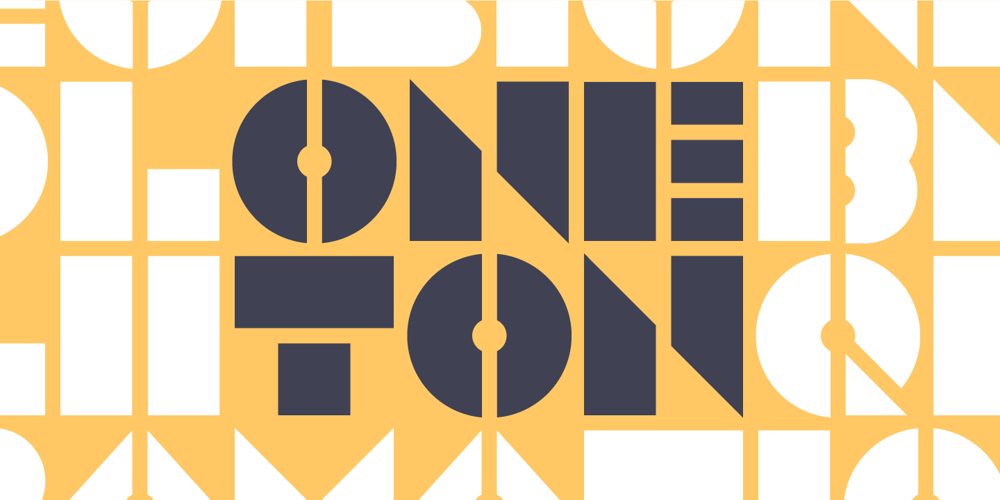
One Ton Font Family was designed by Luke Thompson and published by Luke Thompson. One Ton contains 4 styles and family package options. One Ton is a really chunky stencil face that sticks to some strict rules, giving it a distinctively industrial, angular look. It’s designed so that the spaces between characters all align in a strong grid. It can bring a ton of personality to signage, branding, editorial and packaging projects where you can afford to be a bit experimental.